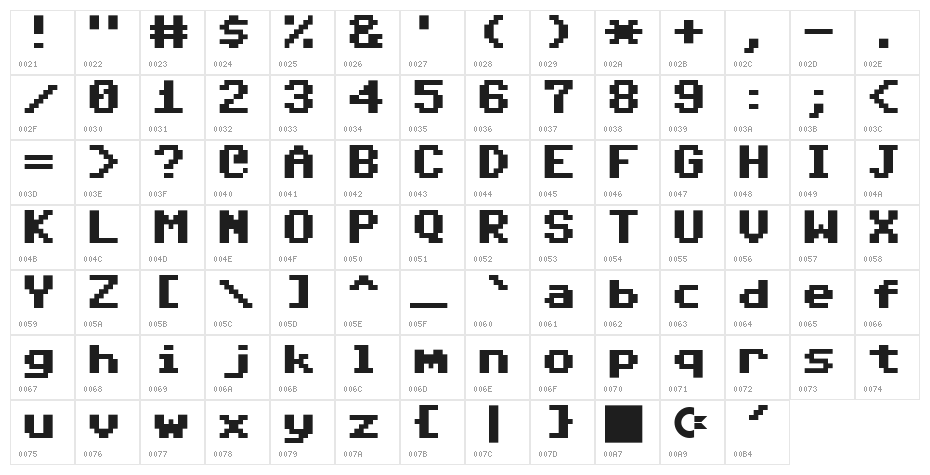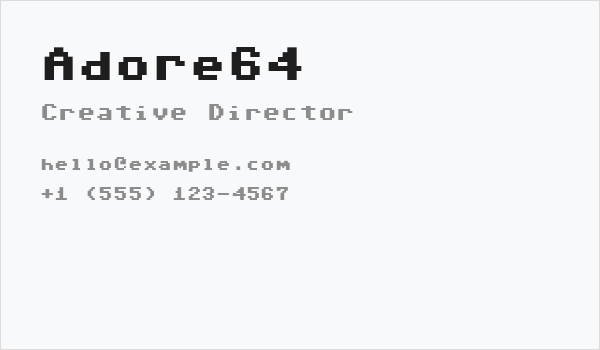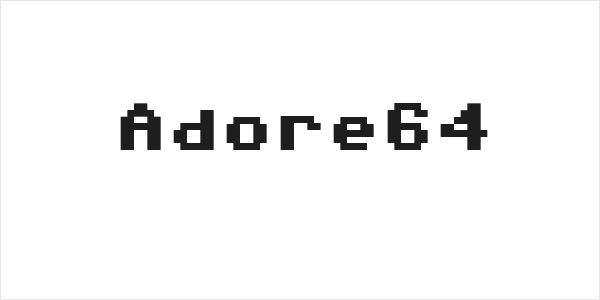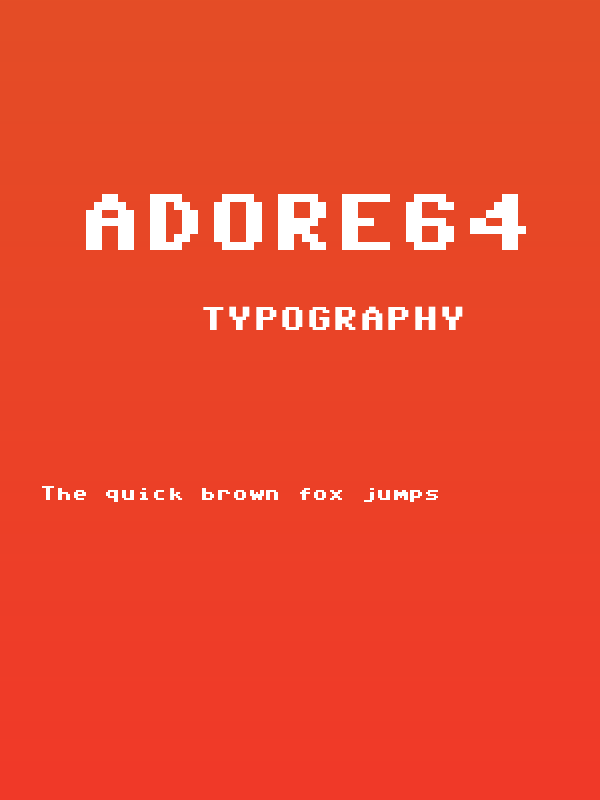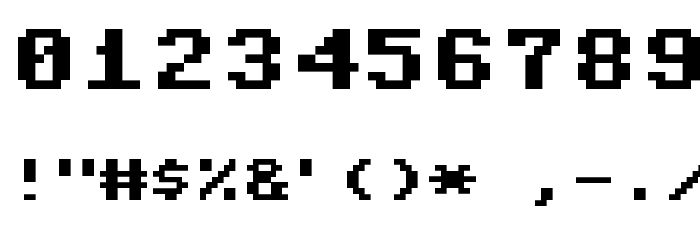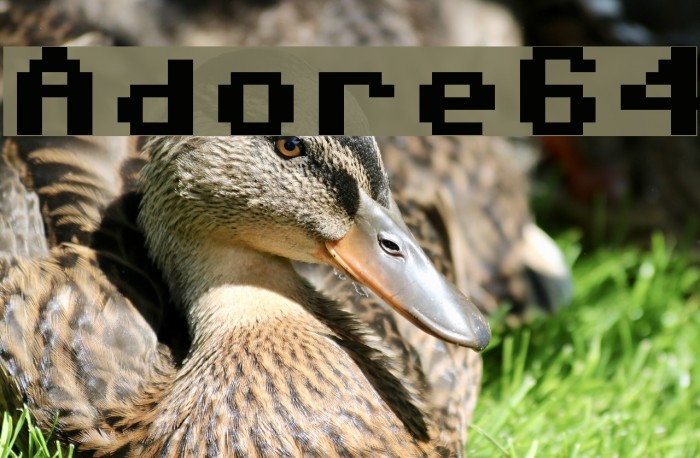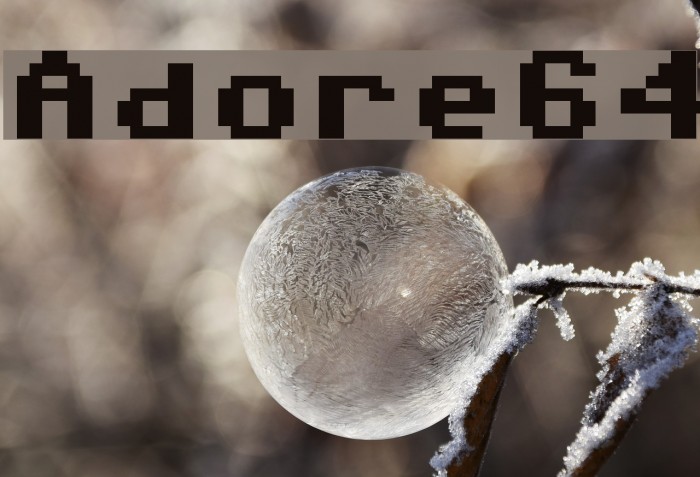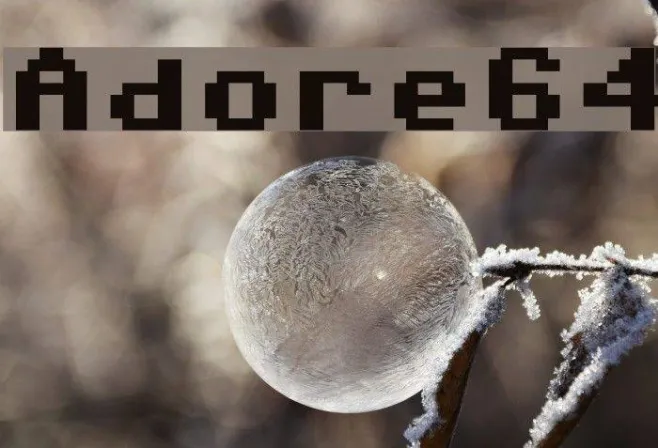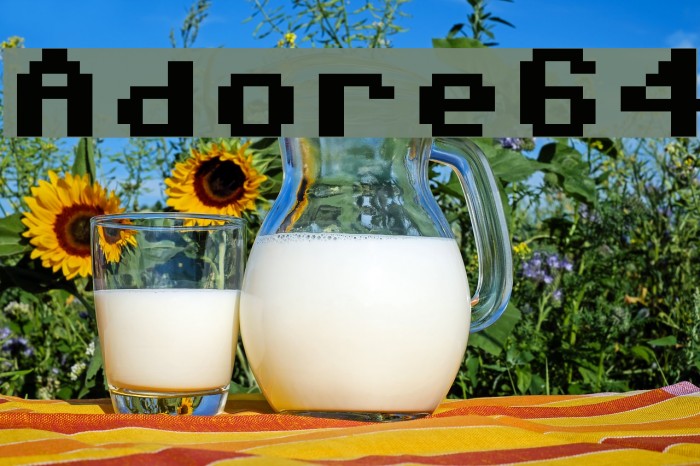
Adore64 Font
Adore64 Description
This font features a pixelated, blocky design reminiscent of early digital and video game typography. Each character is composed of uniform square blocks, giving it a distinctly retro and digital appearance. The uppercase and lowercase letters maintain a consistent height and width, emphasizing the monospaced nature of the font. Numbers and special characters follow the same pixelated style, ensuring a cohesive look across all glyphs. The font's simplicity and geometric structure make it highly legible, even at smaller sizes, while its nostalgic aesthetic evokes a sense of vintage computing and gaming.
| Overall Style | Vintage |
| Use Case | Logos, Digital displays, Retro-themed designs |
| Proposed Projects | Ideal for retro video game designs, digital art projects, and any creative work that seeks to evoke nostalgia for early computing and gaming eras. |